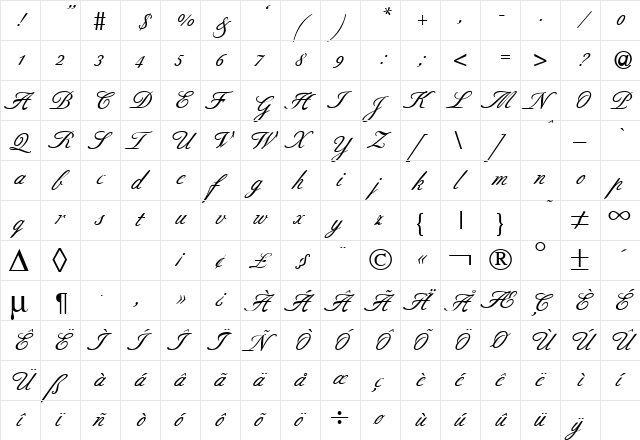
BerneseScript Bold
Design Context for BerneseScript Typeface
BerneseScript flows with the natural rhythm of handwritten lettering, making it ideal for designs that call for warmth and personal expression. Its bold stroke weight gives it real presence on the page.
Font Pairing: Combine BerneseScript with a simple geometric sans for maximum contrast — the tension between flowing curves and clean structure is a classic typographic pairing.
Pro Tip: Use BerneseScript for short runs of text — names, titles, or taglines. Extended body copy in script faces tires the eye quickly.